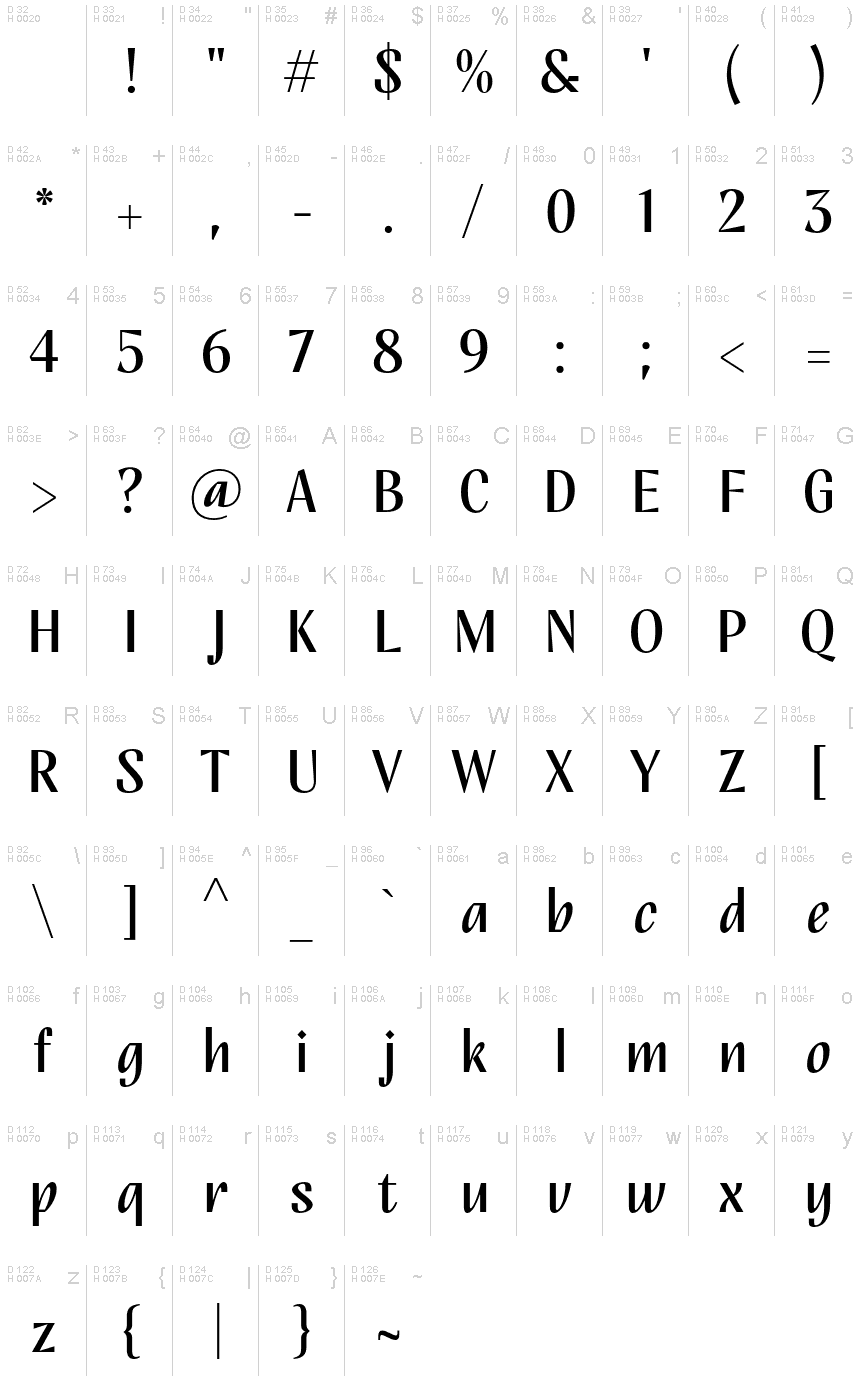
TT Nooks Script is a semi-light, semi-condensed font that exudes elegance and sophistication. Designed by TypeType Foundry, this font family is ideal for creating stunning wedding invitations, luxurious branding materials, and high-end fashion editorials. Its delicate cursive strokes and refined letterforms are perfect for adding a touch of class to any project. Whether crafting an exquisite menu or designing an eye-catching logo, TT Nooks Script will elevate your work to new heights of beauty and refinement. Try it today and experience the magic of this exquisite typeface!